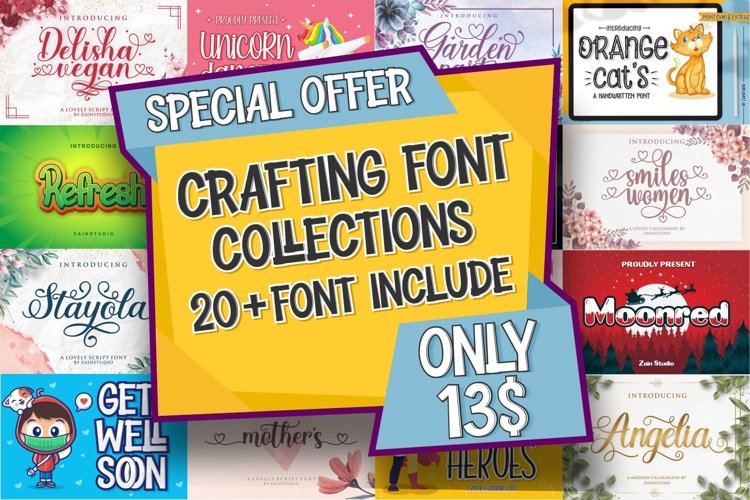
AWESOME DISCOUNT CRAFTING BUNDLE FONT!!!!
The bundle contains 23 fonts. This is a collection of some of my fonts ,
This font bundle
includes a varied range of font styles such as, calligraphy, signature,
brush lettering, kids, fun, display ,serif, san serif, font duo and
extras and more.
- Doctor Heroes